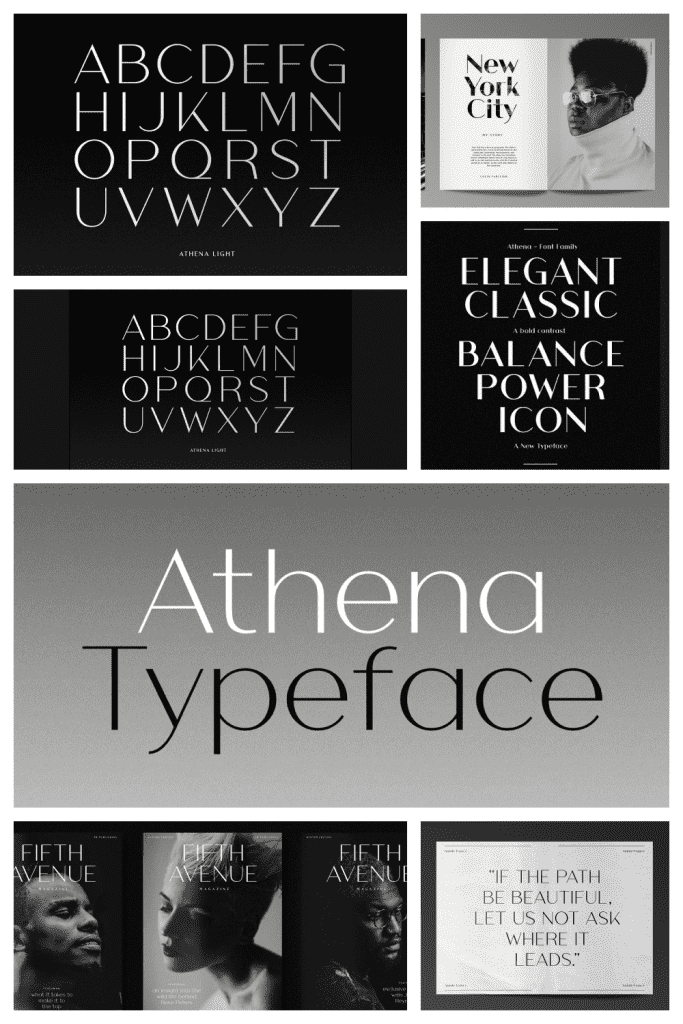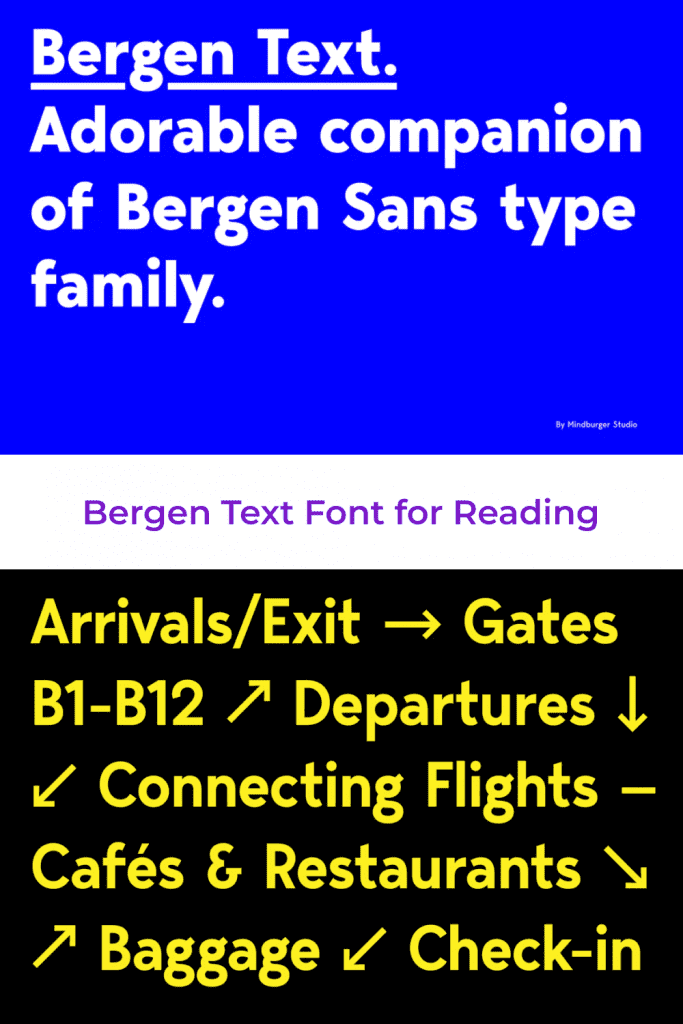
Good Font For Reading On Screen . Explore the best fonts for accessibility in our guide, offering tips on readability, ada/wcag compliance, and making digital content inclusive. Explore the best fonts for reading: Check out the typetype list of the. Dive into font legibility, what makes a font stand out, and the best choices for web design. Fonts like georgia, helvetica, and times new roman are recommended for extended reading sessions on a screen. Plus, sans serif fonts have reduced decorative flourishes that can. A large new study of the best fonts for online reading is ultimately disappointing, because it doesn’t answer the most burning question: Discover the top fonts for optimal online reading experience in 2023. These fonts are easy to read on a computer screen because they line up evenly with the pixels.
Plus, sans serif fonts have reduced decorative flourishes that can. A large new study of the best fonts for online reading is ultimately disappointing, because it doesn’t answer the most burning question: Explore the best fonts for accessibility in our guide, offering tips on readability, ada/wcag compliance, and making digital content inclusive. These fonts are easy to read on a computer screen because they line up evenly with the pixels. Explore the best fonts for reading: Discover the top fonts for optimal online reading experience in 2023. Fonts like georgia, helvetica, and times new roman are recommended for extended reading sessions on a screen. Dive into font legibility, what makes a font stand out, and the best choices for web design. Check out the typetype list of the.
Good Font For Reading On Screen Discover the top fonts for optimal online reading experience in 2023. Discover the top fonts for optimal online reading experience in 2023. Explore the best fonts for accessibility in our guide, offering tips on readability, ada/wcag compliance, and making digital content inclusive. Plus, sans serif fonts have reduced decorative flourishes that can. These fonts are easy to read on a computer screen because they line up evenly with the pixels. Check out the typetype list of the. Explore the best fonts for reading: A large new study of the best fonts for online reading is ultimately disappointing, because it doesn’t answer the most burning question: Dive into font legibility, what makes a font stand out, and the best choices for web design. Fonts like georgia, helvetica, and times new roman are recommended for extended reading sessions on a screen.
15+ Best Fonts for Reading in 2021 Free and Premium Fonts Good Font For Reading On Screen Dive into font legibility, what makes a font stand out, and the best choices for web design. Check out the typetype list of the. Plus, sans serif fonts have reduced decorative flourishes that can. Fonts like georgia, helvetica, and times new roman are recommended for extended reading sessions on a screen. Discover the top fonts for optimal online reading experience. Good Font For Reading On Screen.
15+ Best Fonts for Reading in 2021 Free and Premium Fo MasterBundles Good Font For Reading On Screen Plus, sans serif fonts have reduced decorative flourishes that can. Check out the typetype list of the. These fonts are easy to read on a computer screen because they line up evenly with the pixels. A large new study of the best fonts for online reading is ultimately disappointing, because it doesn’t answer the most burning question: Explore the best. Good Font For Reading On Screen.
Readable & Stylish The 15 Best Fonts for Reading Good Font For Reading On Screen Dive into font legibility, what makes a font stand out, and the best choices for web design. Check out the typetype list of the. Explore the best fonts for reading: Fonts like georgia, helvetica, and times new roman are recommended for extended reading sessions on a screen. Discover the top fonts for optimal online reading experience in 2023. A large. Good Font For Reading On Screen.
25 Fonts for Reading That Transform Experiences From Books Good Font For Reading On Screen These fonts are easy to read on a computer screen because they line up evenly with the pixels. Discover the top fonts for optimal online reading experience in 2023. Fonts like georgia, helvetica, and times new roman are recommended for extended reading sessions on a screen. Explore the best fonts for reading: Explore the best fonts for accessibility in our. Good Font For Reading On Screen.
15+ Best Fonts for Reading in 2021 Free and Premium Fo MasterBundles Good Font For Reading On Screen Plus, sans serif fonts have reduced decorative flourishes that can. Discover the top fonts for optimal online reading experience in 2023. A large new study of the best fonts for online reading is ultimately disappointing, because it doesn’t answer the most burning question: Check out the typetype list of the. Fonts like georgia, helvetica, and times new roman are recommended. Good Font For Reading On Screen.
15+ Best Fonts for Reading in 2021 Free and Premium Fo MasterBundles Good Font For Reading On Screen Explore the best fonts for accessibility in our guide, offering tips on readability, ada/wcag compliance, and making digital content inclusive. Check out the typetype list of the. Fonts like georgia, helvetica, and times new roman are recommended for extended reading sessions on a screen. Explore the best fonts for reading: A large new study of the best fonts for online. Good Font For Reading On Screen.
15+ Best Fonts for Reading in 2021 Free and Premium Fo MasterBundles Good Font For Reading On Screen Fonts like georgia, helvetica, and times new roman are recommended for extended reading sessions on a screen. Explore the best fonts for reading: Check out the typetype list of the. Discover the top fonts for optimal online reading experience in 2023. Dive into font legibility, what makes a font stand out, and the best choices for web design. These fonts. Good Font For Reading On Screen.
10 Best fonts for improving reading experience Cool fonts, Font family, Typeface design Good Font For Reading On Screen Discover the top fonts for optimal online reading experience in 2023. A large new study of the best fonts for online reading is ultimately disappointing, because it doesn’t answer the most burning question: Explore the best fonts for reading: Dive into font legibility, what makes a font stand out, and the best choices for web design. Check out the typetype. Good Font For Reading On Screen.